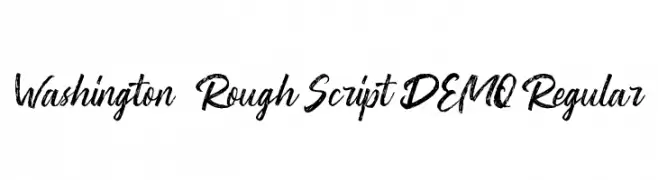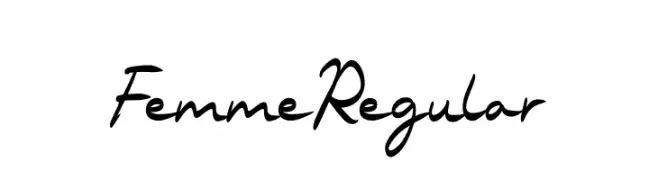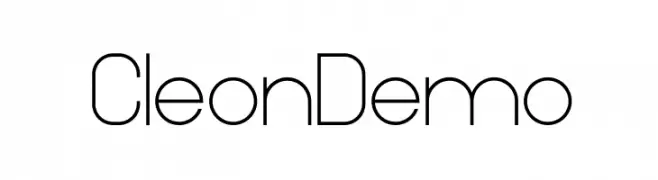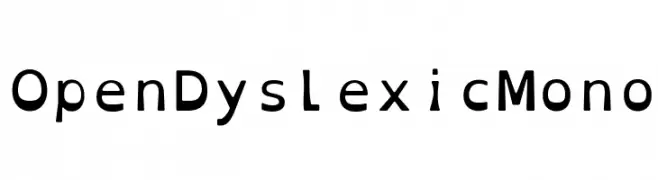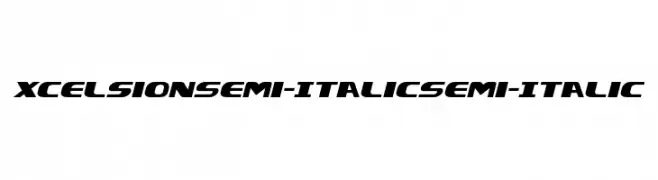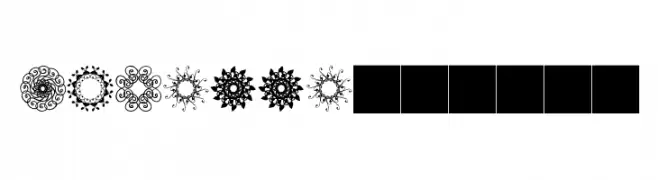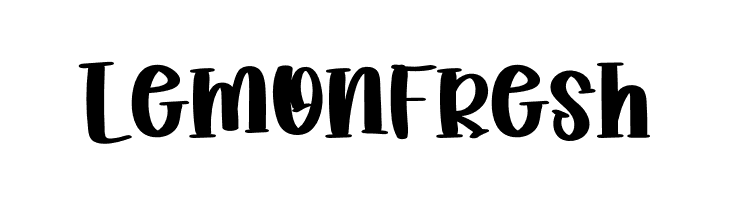
A bold, rough script font with a hand-drawn, brush-like texture.
A stylish, elegant script font with fluid, cursive strokes and a modern flair.
A modern, geometric font with clean lines and uniform stroke width.
A bold, playful, and casual handwritten font with rounded edges.
A bold, modern font with thick strokes and a slightly condensed style.
A monospaced font designed for readability, featuring distinct, weighted letterforms.
A bold, semi-italic font with a futuristic and sporty design.
A bold, high-contrast serif font with elegant and modern characteristics.